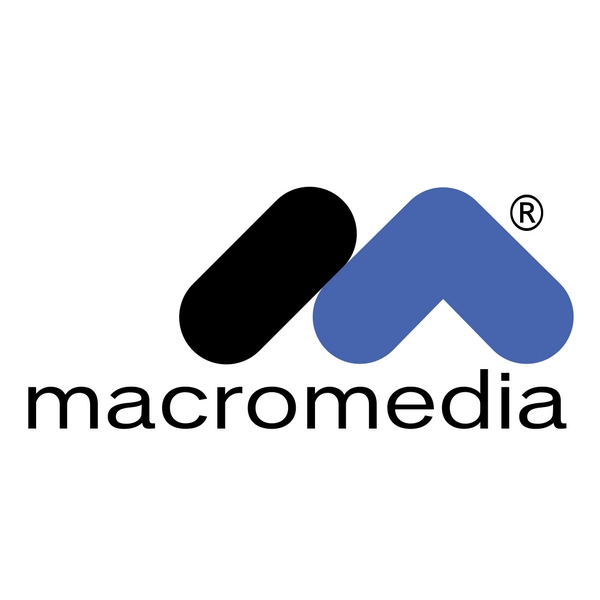
Macromedia Font
Fonts in UseMacromedia was a software company that developed popular multimedia tools, such as Macromedia Flash, during the late 20th century.
The Macromedia logotype likely uses Akzidenz Grotesk Ext Light as its base font, possibly with minor alterations to the letter "a". This font is a commercial typeface that can be purchased here.